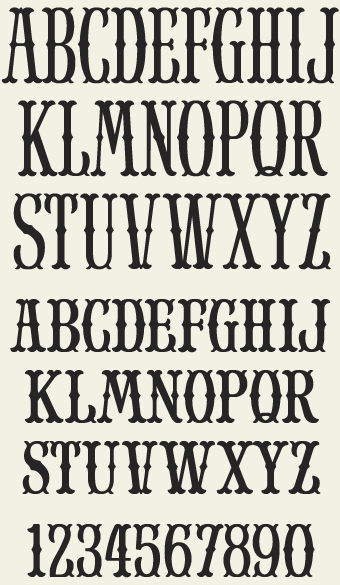
John modeled these
letters after the old Hastings & Co. gold leaf packs from the 1800's. Small caps are designed to appear raised like the original logo. They don't sit on the baseline like the larger caps (but you could manually adjust the letters if you wanted to do that).